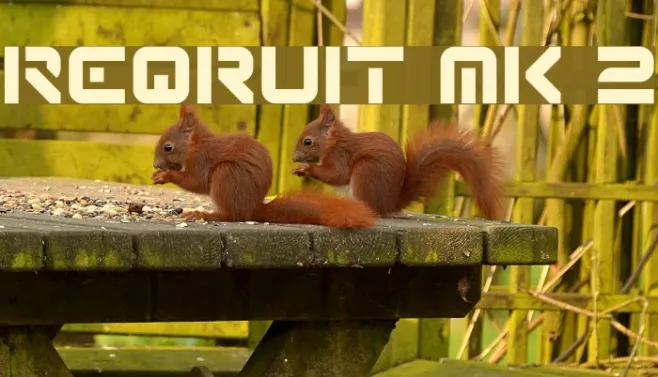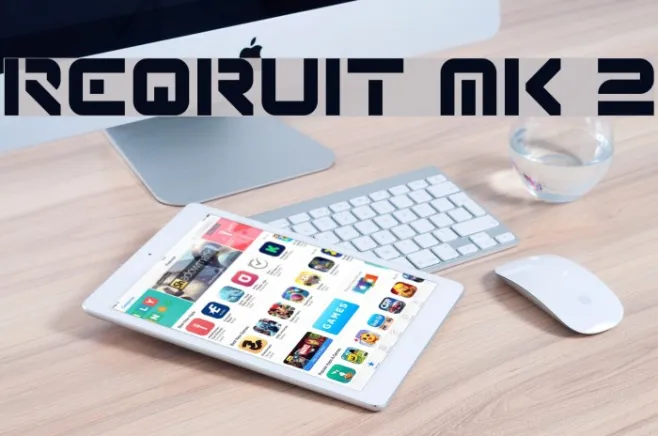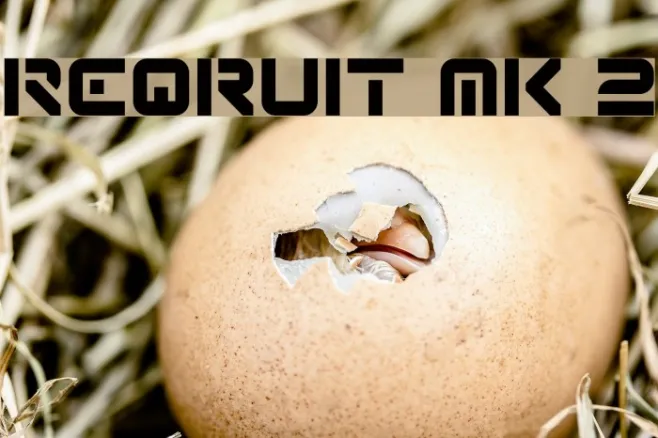
Reqruit Mk 2 Font
Reqruit Mk 2 Description
This font features a bold, futuristic design with geometric shapes and sharp angles. The characters are constructed with a stencil-like appearance, giving them a modern and industrial feel. The uppercase and lowercase letters maintain a consistent style, with distinct cuts and lines that create a sense of movement and dynamism. The numerals and special characters are designed to match the overall aesthetic, ensuring a cohesive look across all elements. This font is ideal for projects that require a strong, contemporary presence.
| Proposed Projects | Ideal for technology branding, sci-fi posters, video game titles, and modern advertising. |